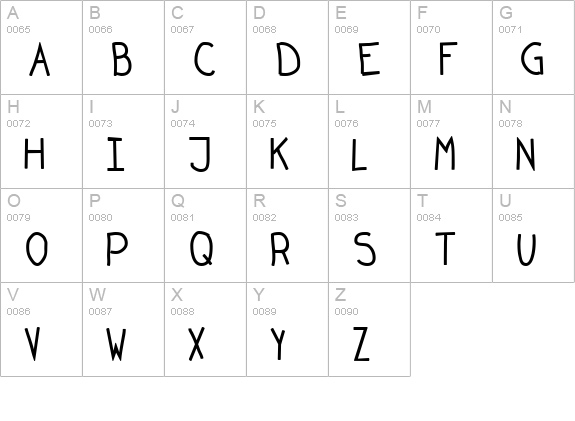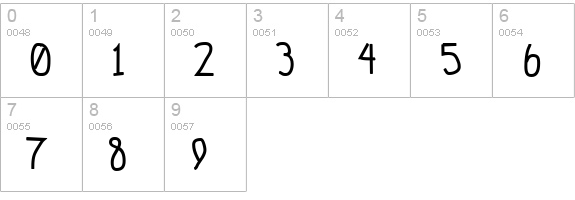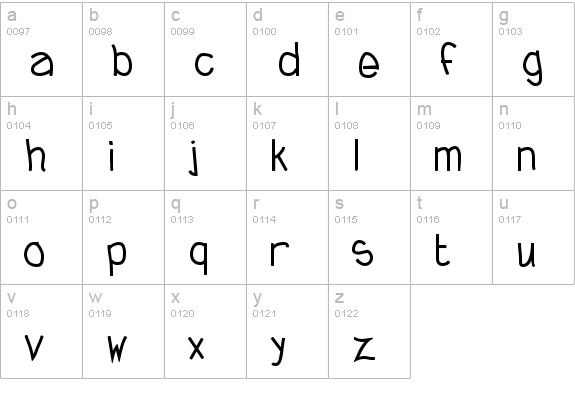
Finals Week Normal Font Details
Finals Week Normal is the standard, neutral variant in the Finals typeface family \xE2\x80\x94 well suited to general body text, paragraphs, and standard typographic work.
Finals Week Normal font is the perfect choice for all your academic projects during those stressful exam weeks. Its clean and professional design will help you create standout papers and presentations. This versatile font is easy to read and will give your work a polished look. And the best part? You can download Finals Week Normal font for free at FontsMarket.com. Don't stress about finding the right font for your finals - Finals Week Normal has you covered. Download it now and make your academic work shine!